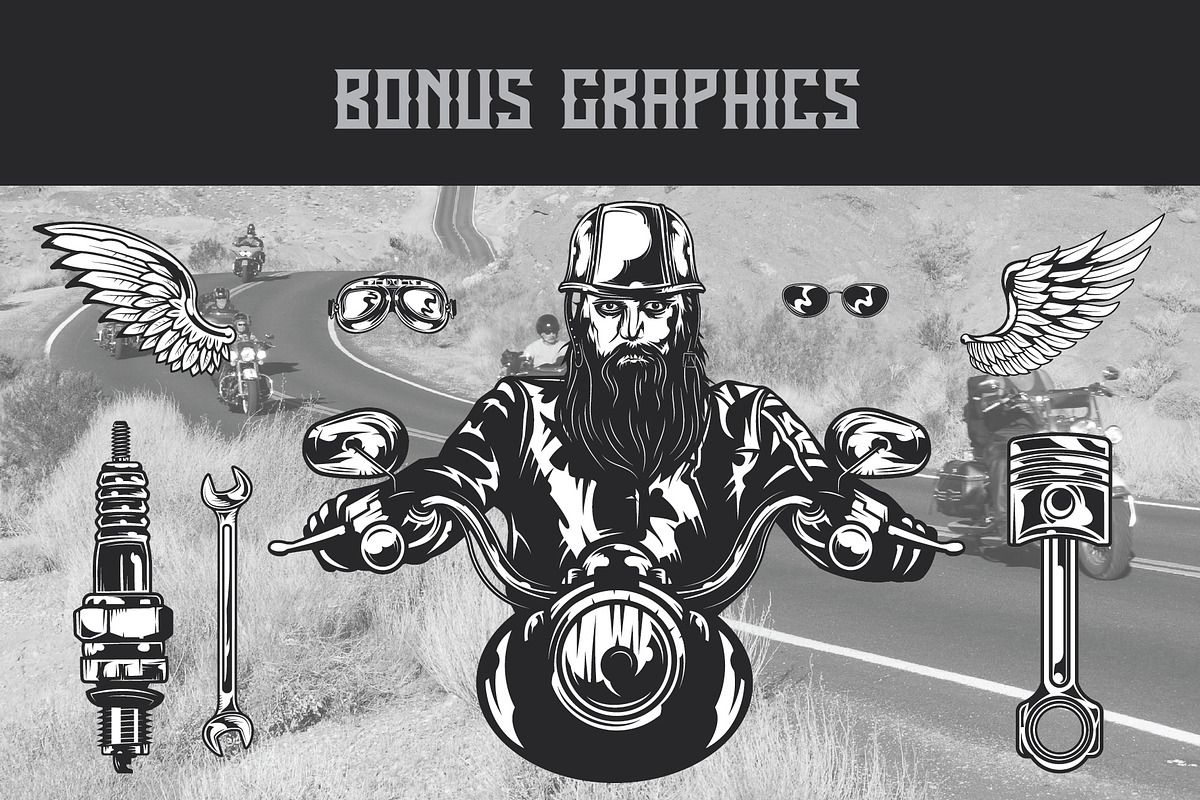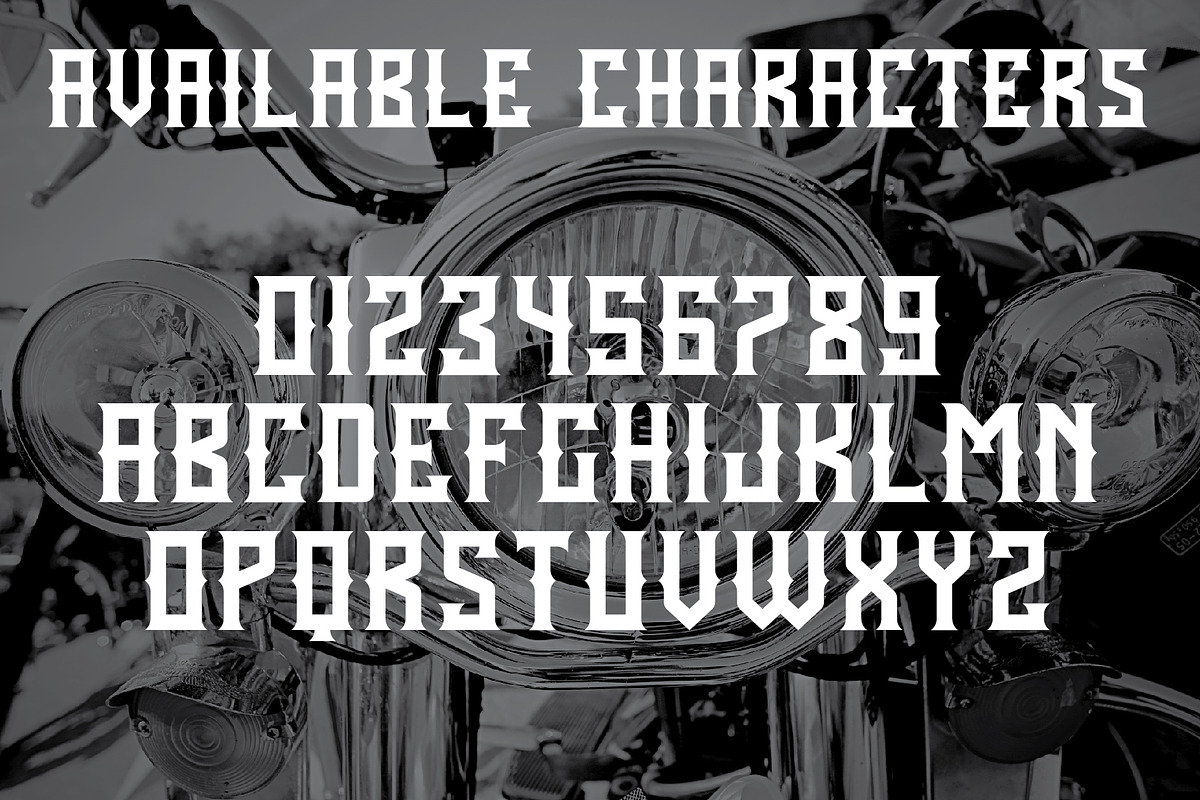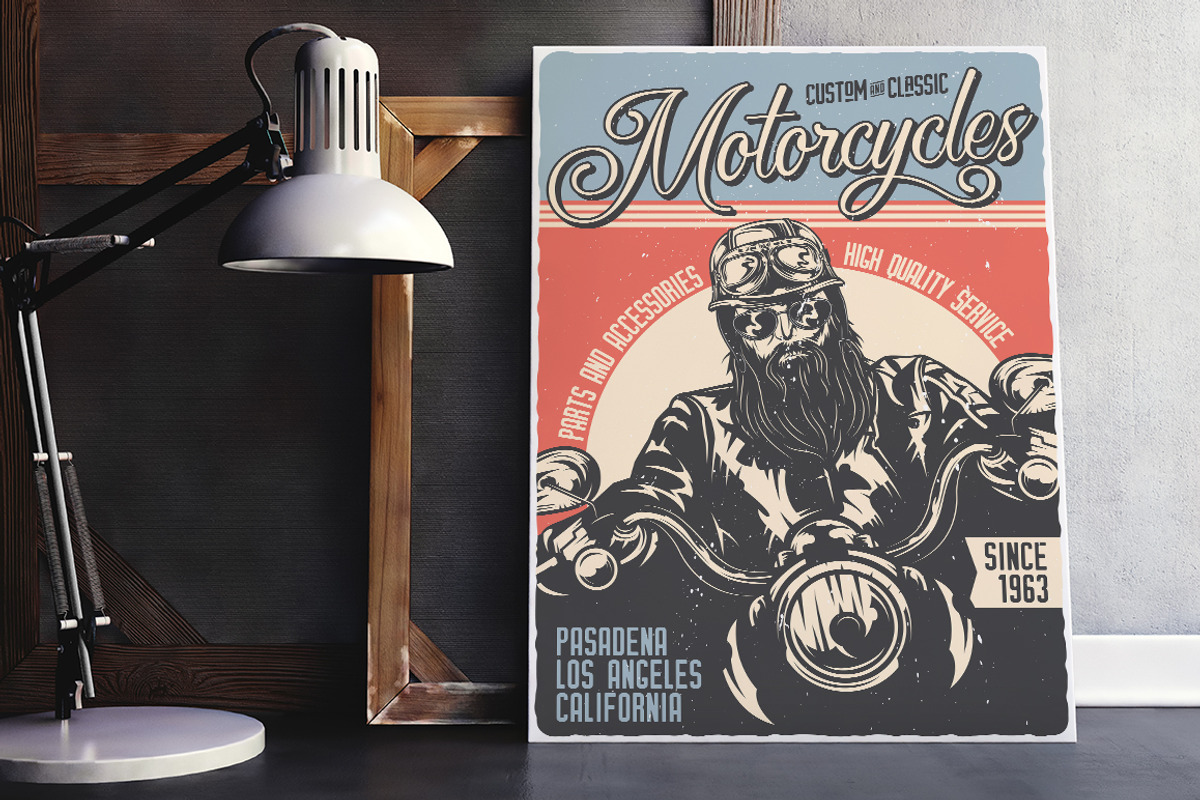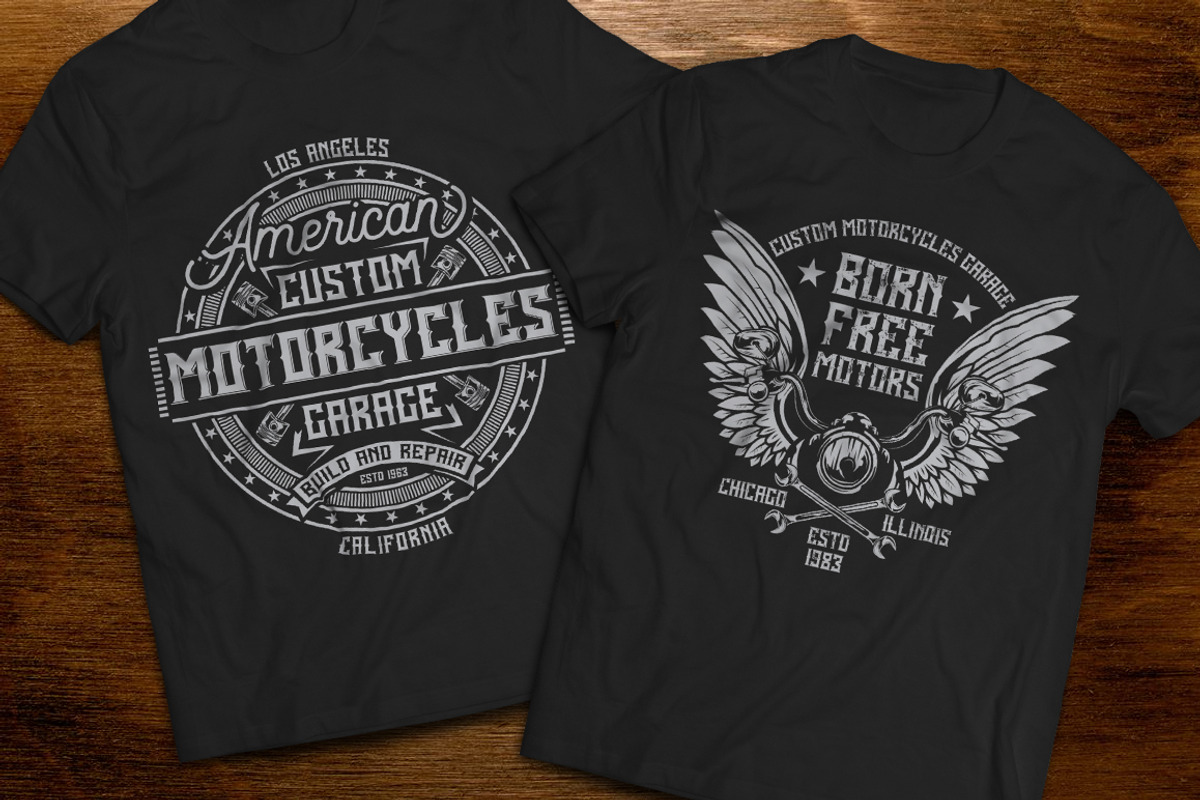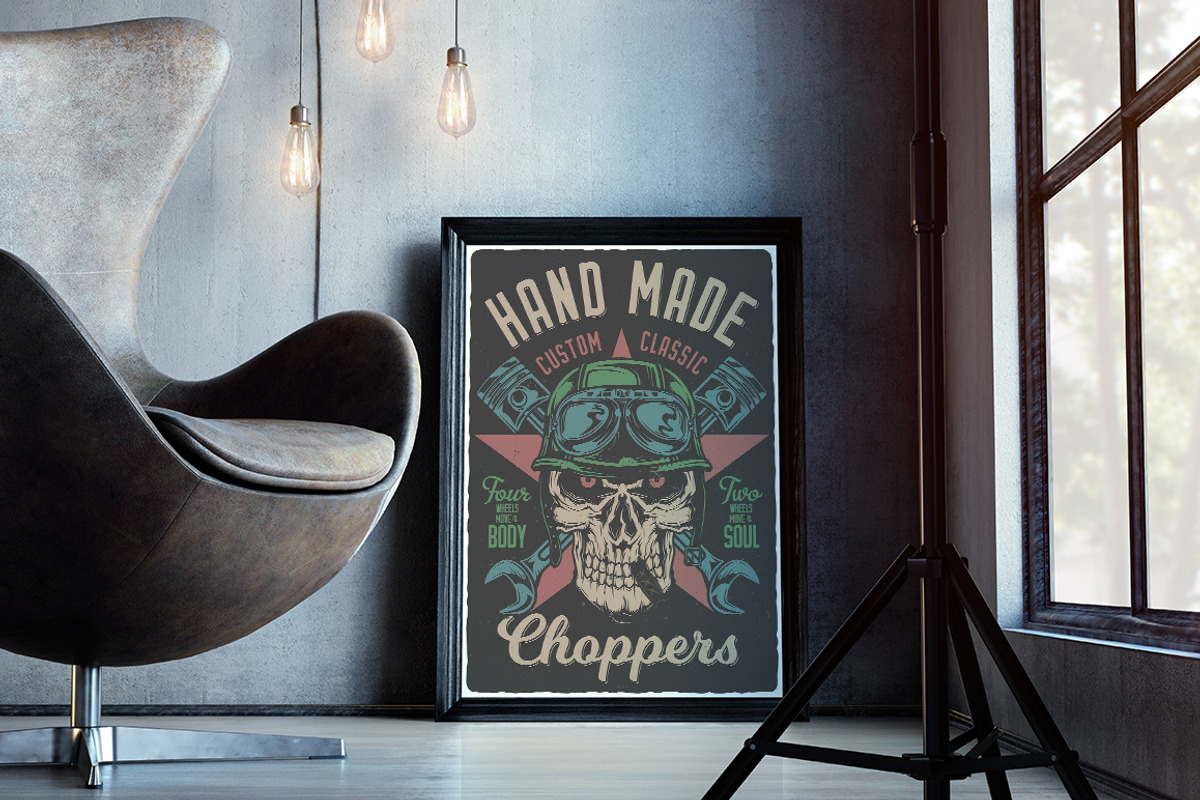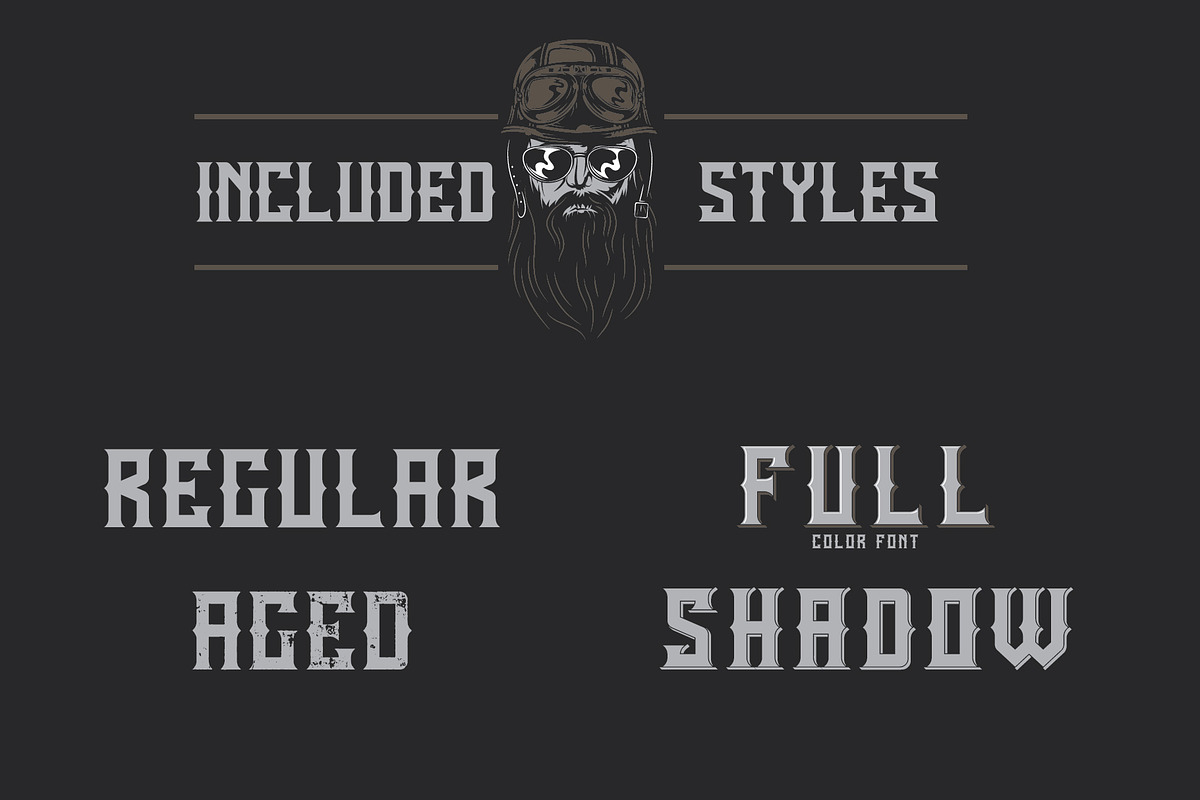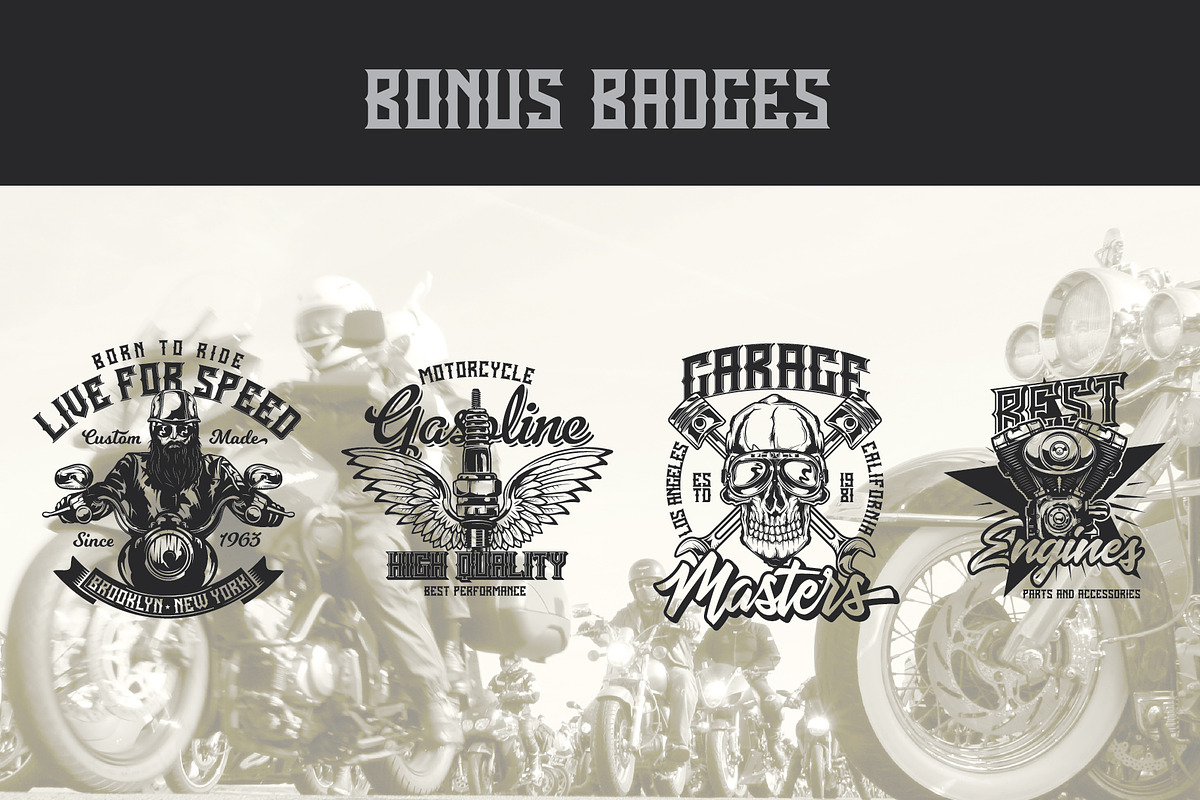
Born Free Typeface
Introducing a vintage look label typeface named "Born Free". This typeface includes four styles, for sample look at 3rd preview. Typeface is good viewed on any yours design.
- This typeface includes four styles, for sample look at 3rd preview.
Why Born Free Typeface is worth a look
Born Free Typeface by VozzyStock fits naturally into Branding, posters, packaging, typography.